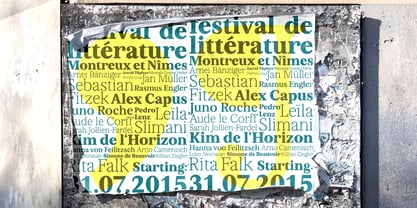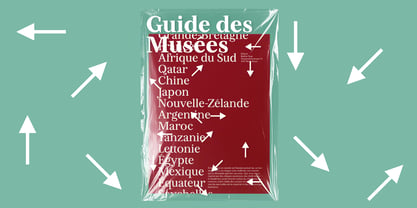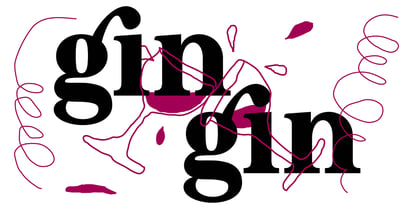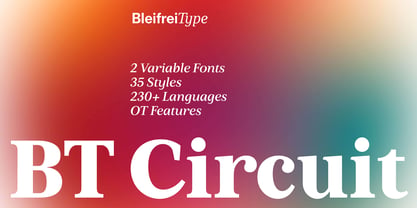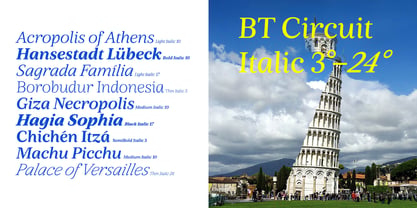
BT Circuit
by Bleifrei Type
The BT Circuit Font Family was designed by Matthieu Dillier and published by Bleifrei Type. BT Circuit contains 35 styles and family package options. More about this family
Inspired by the flowing curves and natural forms found in nature, BT Circuit embodies the elegance and fluidity of its inspiration. The typeface is a serif font, which features soft, rounded edges und subtle curves mixed with hard corners. The characteristic raindrop shape that is to be found in some glyphs, gives the typeface a rhythmic and a recognizable personality. BT Circuit masters the balancing act between a traditional and a modern font by mixing proven and familiar shapes with unusual and newly interpreted characters.
Bleifrei Type is an independent type foundry based in Bern, Switzerland – founded by Aaron, Florian, Matthieu and Rahel. Playful and a little naive, they explore unconventional paths in type design and aren't afraid to challenge typographic traditions. What starts as a sketch or idea often grows into a bold typeface, shaped through feedback, curiosity and lots of analogue experiments.